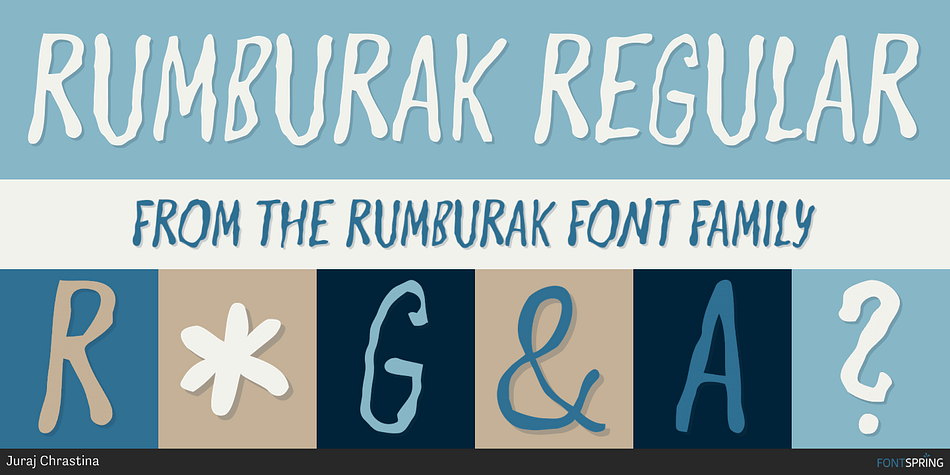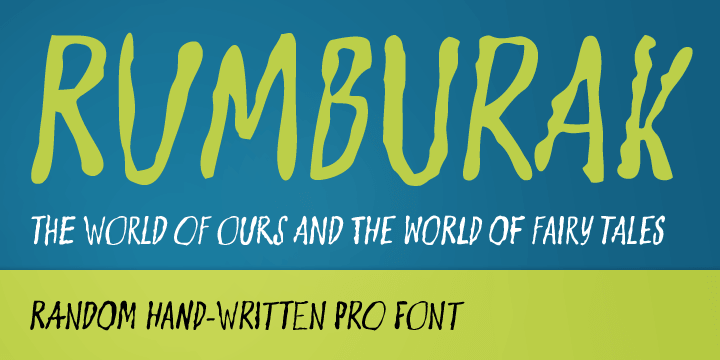
RUMBURAK REGULAR
Rumburak is a hand display font published by Juraj Chrastina.
This handmade-looking, playful type is inspired by the titles of a few old Czech movies for children.
With its irregularity and numerous alternates, Rumburak simulates live handwriting. When the font is used in OpenType-savvy applications, the 4 variants of glyphs are automatically alternated to achieve a random-like effect.
The spacing and kerning were carefully fine-tuned by Igino Marini and the kerning table contains kerning pairs for use with the random feature turned on or off. The font includes multi-language support.